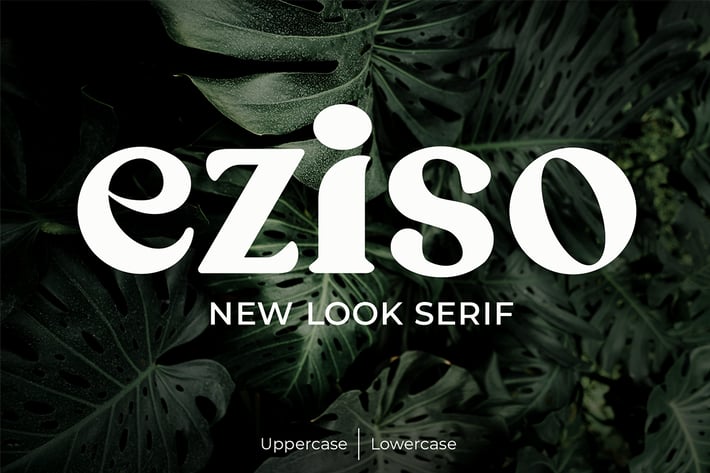
Eziso - Serif Font
Introducing Eziso, an elegant, simple, and beauty serif font. Its unique and lovely feel.
So perfect for you who needs a typeface for logo designs, magazine, social media, brochure, and many more.
+ Uppercase
+ Lowercase
+ Numerals